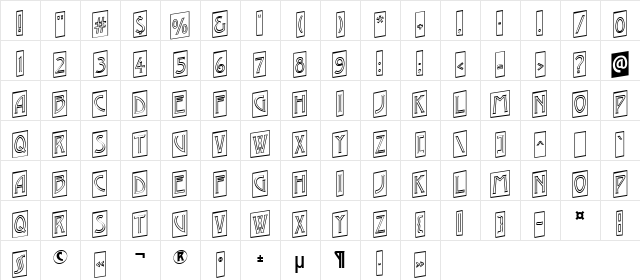
Complete a_ModernoCmOtlUp Regular glyph index. Displaying only characters natively supported by a_ModernoCmOtlUp Regular font.
a_ModernoCmOtlUp is a composed and adaptable typeface that performs quietly and consistently across a wide range of design contexts.